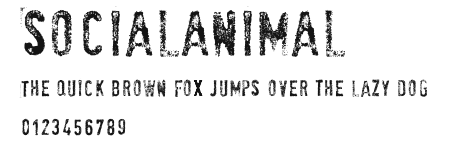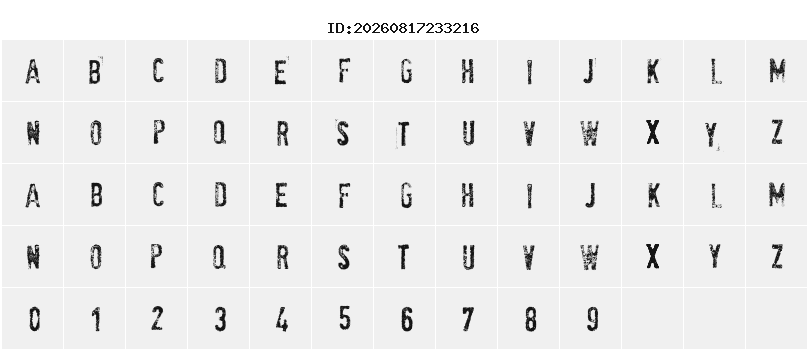
• Font Name: SociaLAnimaL
• Designer: Bas Bouwense
About SociaLAnimaL.ttf
SociaLAnimaL.ttf is a modern, elegant sans-serif font designed for ultimate readability and visual harmony. Perfect for branding, headlines, web design, and print materials.